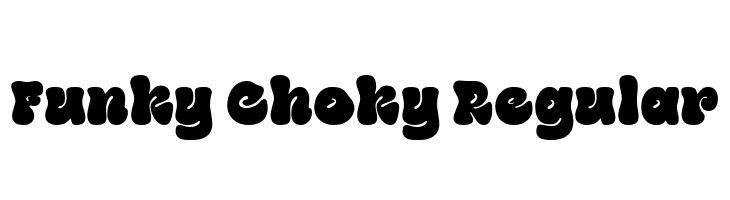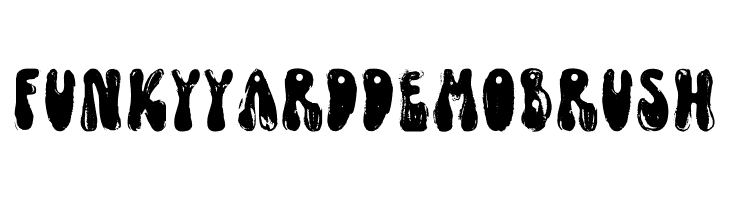
( Fonts by Prioritype Co )
A bold, artistic font with a playful, brush-painted appearance.
( Fonts by Prioritype Co )
A bold, expressive brush-style font with dynamic, hand-painted strokes.
( Fonts by Prioritype Co )
A bold, playful font with a retro, psychedelic vibe.
( Fonts by Alit Design )
A bold, playful font with thick, rounded characters and a bubbly design.
( www.streetfiles.org/spust )
A bold, graffiti-inspired font with dynamic, angular lines and a street art vibe.
( Fonts by Asep Rendi )
A bold, playful font with exaggerated, irregular shapes and dynamic energy.
( Fonts by Lettersweet Studio )
A bold, playful font with exaggerated, whimsical letterforms.
( Fonts by HansCo )
A bold, playful typeface with rounded, bubbly characters.
( Fonts by Måns Grebäck )
A bold, playful font with rounded strokes and a whimsical, retro flair.
( Fonts by PutraCetol Studio )
A playful, bold font with rounded, bubbly characters and a whimsical style.